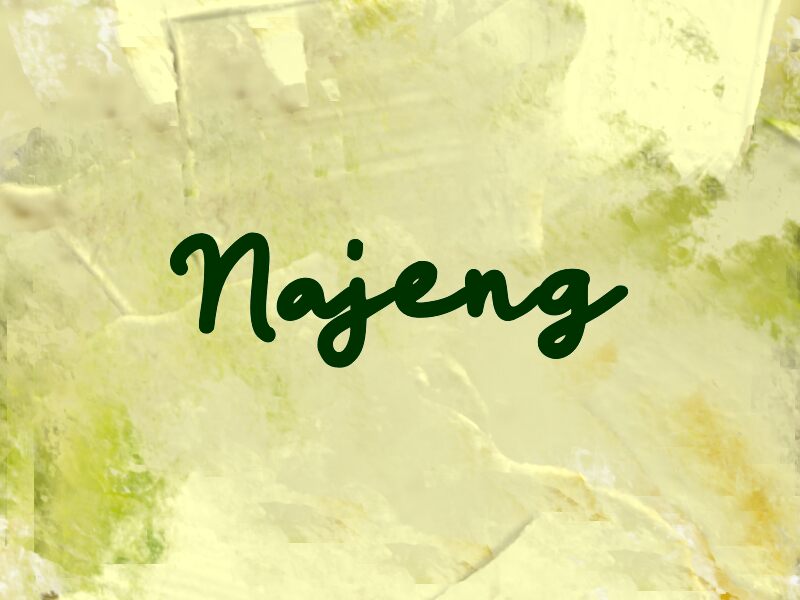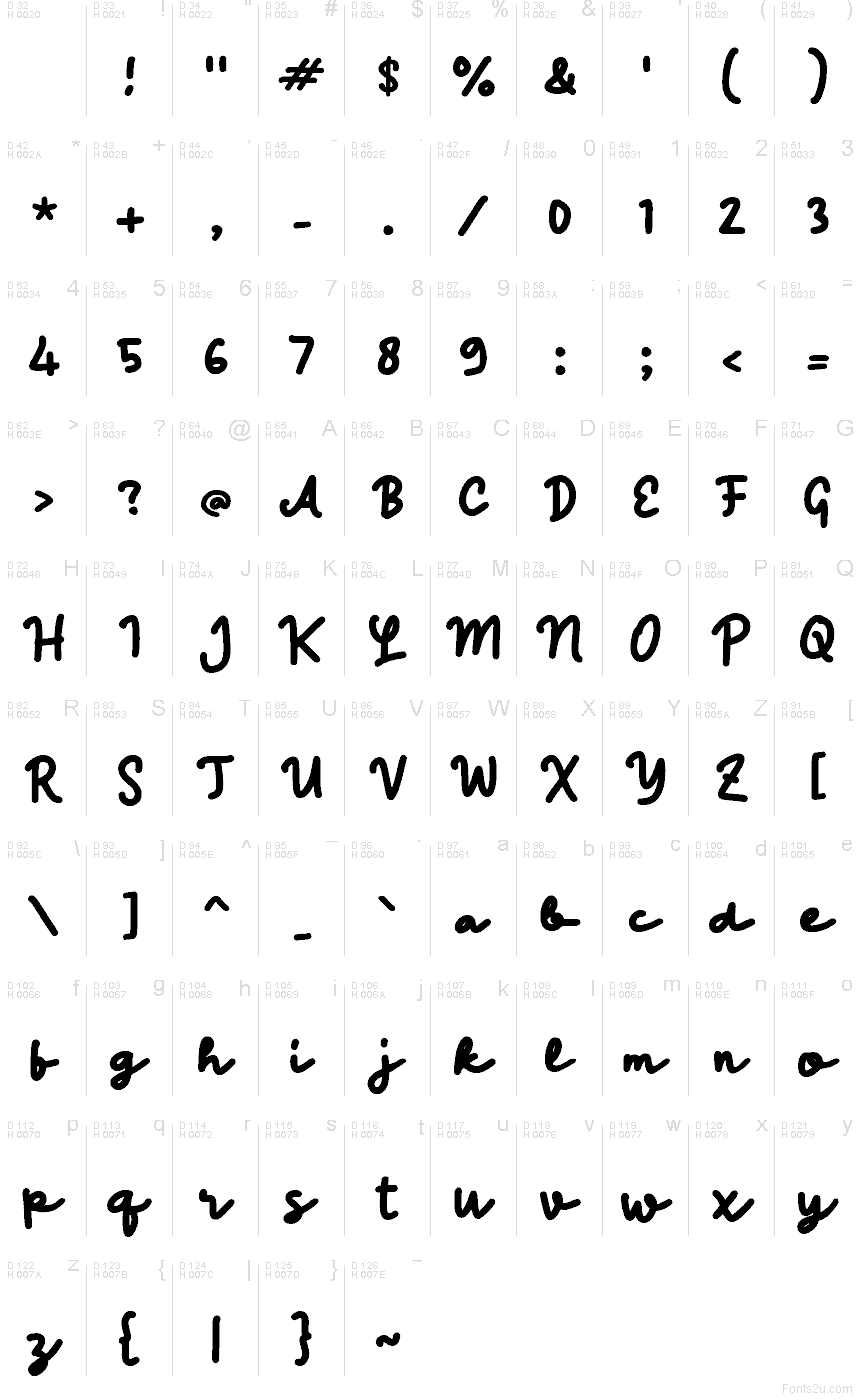
Najeng
Najeng font by wep is a free handwritten script typeface that feels like a bold signature drawn with an inky brush pen. Thick, velvety strokes and smooth, looping connections give it an easygoing, personal tone, while the shapes stay clean and sturdy enough to read at a glance. It has that “quick note on a postcard” warmth, but with the polish you need for real-world branding and layouts.
Using Najeng, this free font comes into its own on social media graphics, product packaging, café menus, logos, quote posters, and friendly email headers. The dense, black strokes hold up beautifully over photos and textured backgrounds, so your words don’t get lost in the noise. Pair it with a simple sans-serif for body text and let Najeng take the spotlight in larger sizes for headlines and key phrases.